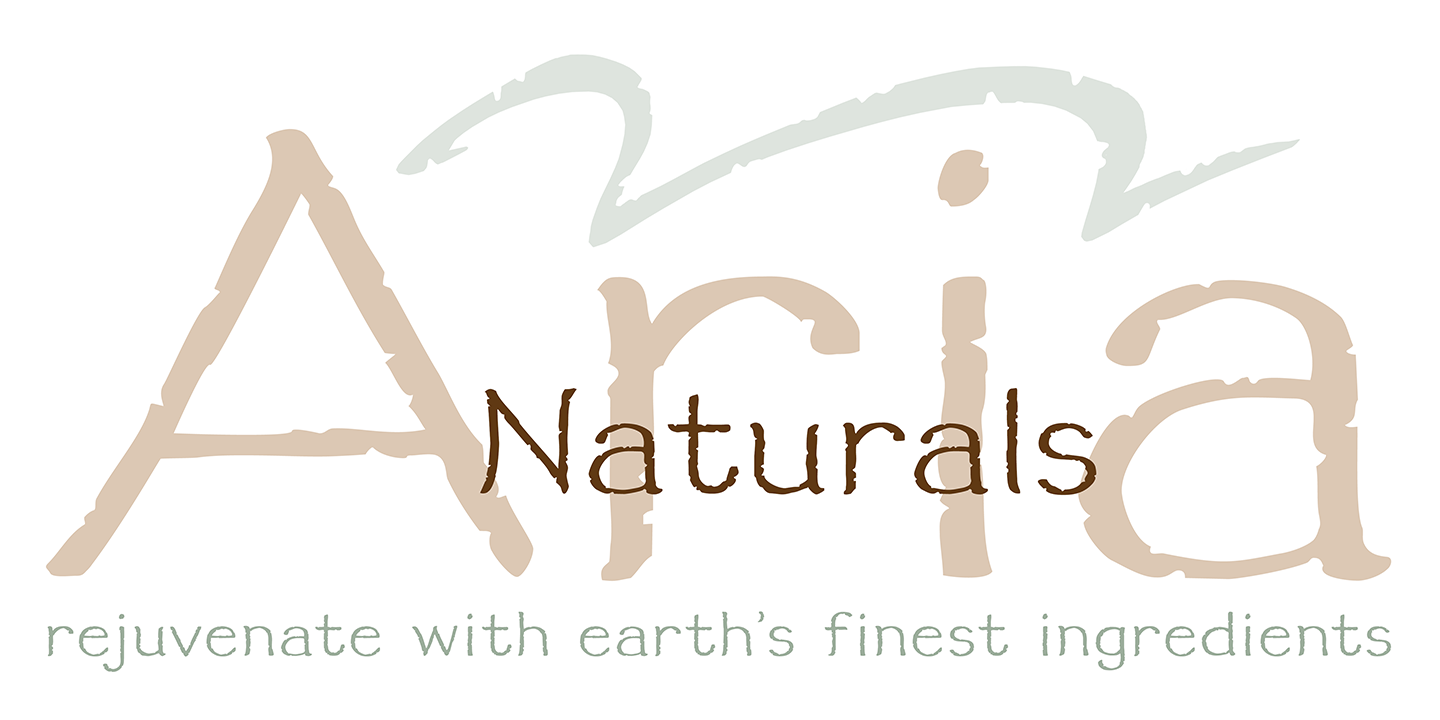
Wheat Font is perfect for organic product packaging, farm-to-table branding, lifestyle blogs, rustic wedding invitations, eco-friendly campaigns, and cozy editorial layouts. Its warm, hand-crafted style brings an inviting and natural feel.
What makes Wheat Font so exciting is its blend of rustic charm and modern simplicity. The textured strokes and rounded edges create a comforting and authentic atmosphere, perfect for brands wanting to connect deeply with their audience.
The font family typically includes Regular, Bold, and Italic styles, allowing flexibility to emphasize different tones and moods within your project.
If you're aiming to add warmth and sincerity to your designs, Wheat Font Free Download is a wonderful choice. Let this font bring a touch of nature’s elegance to your creative work.